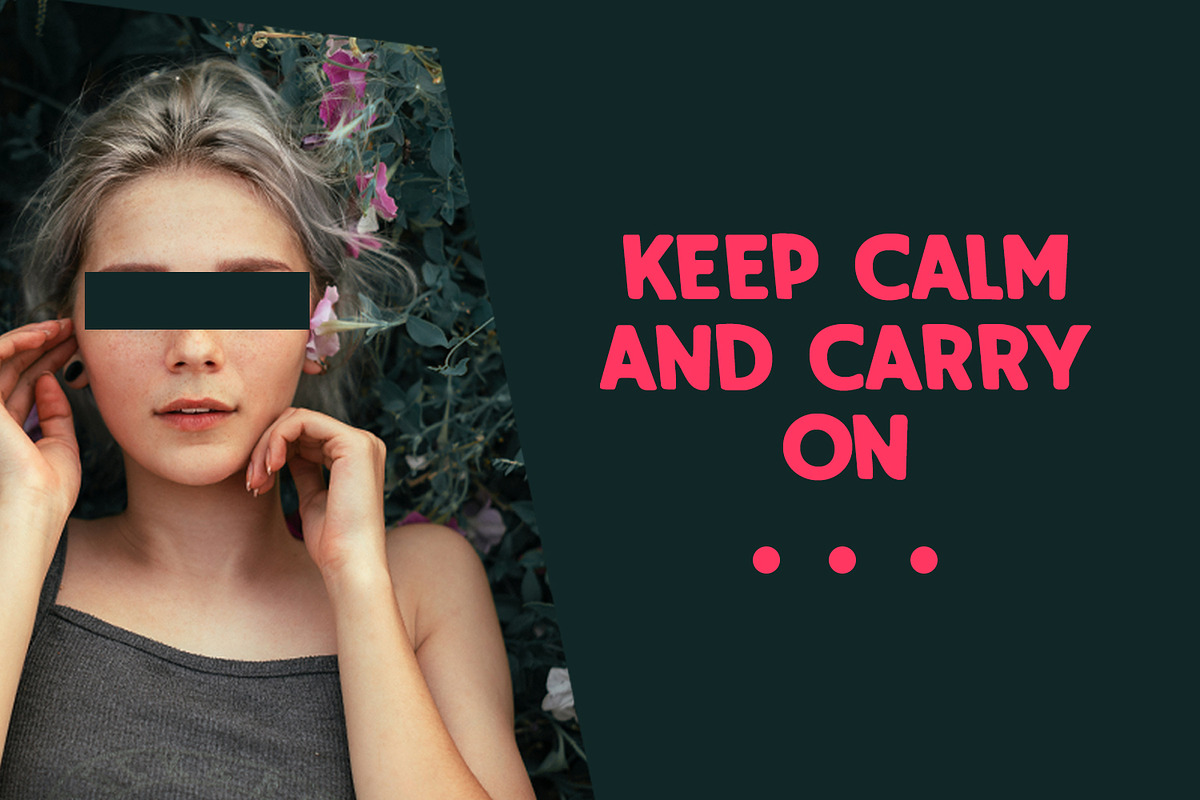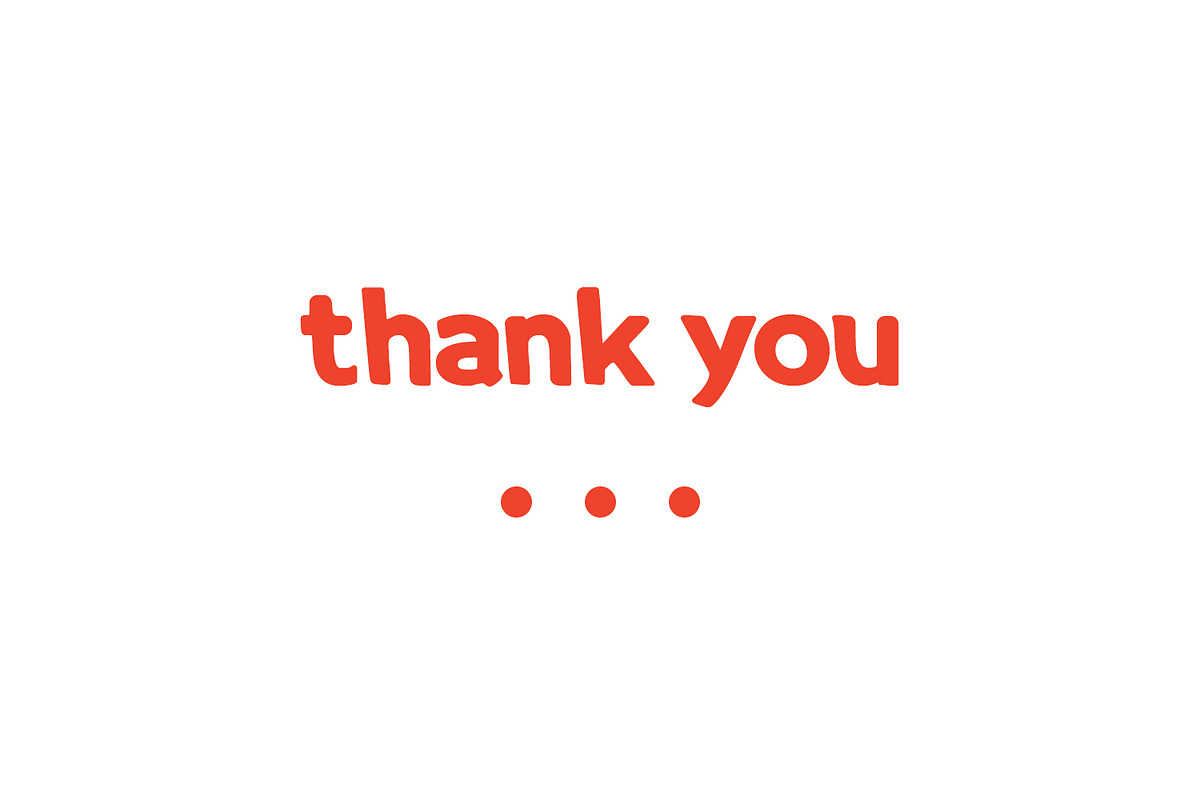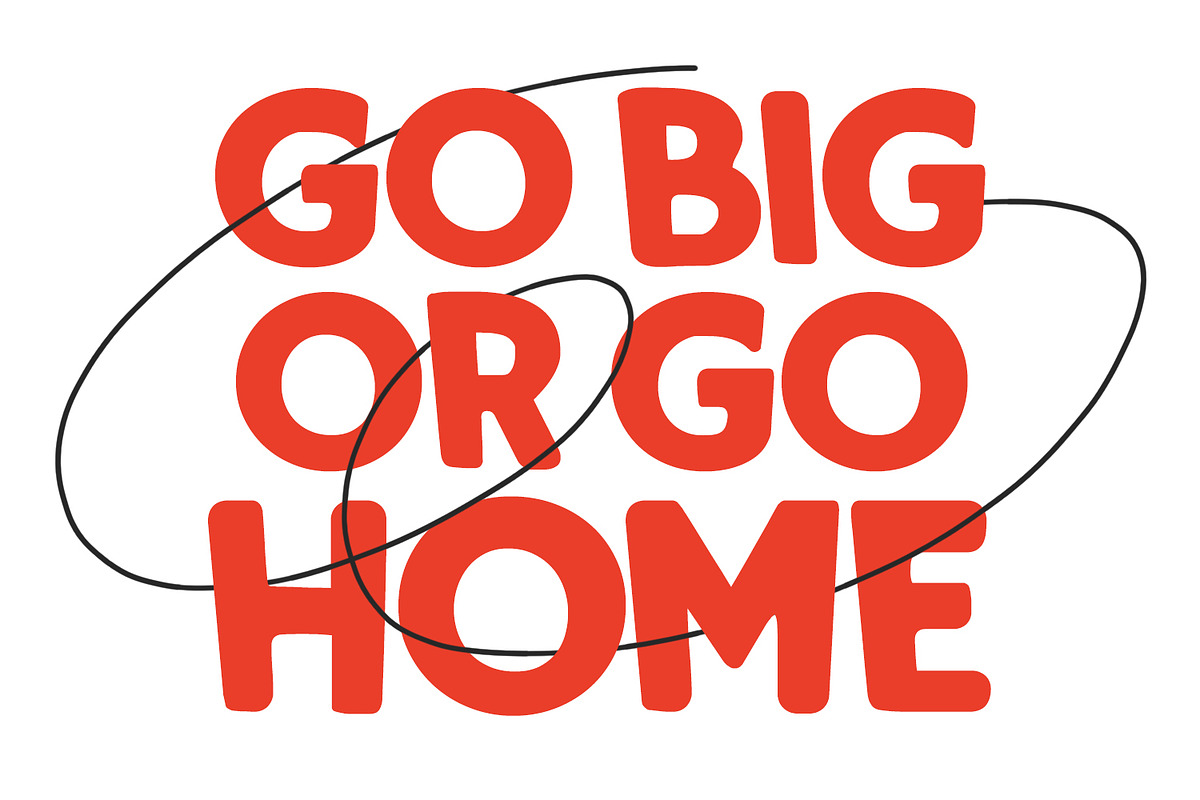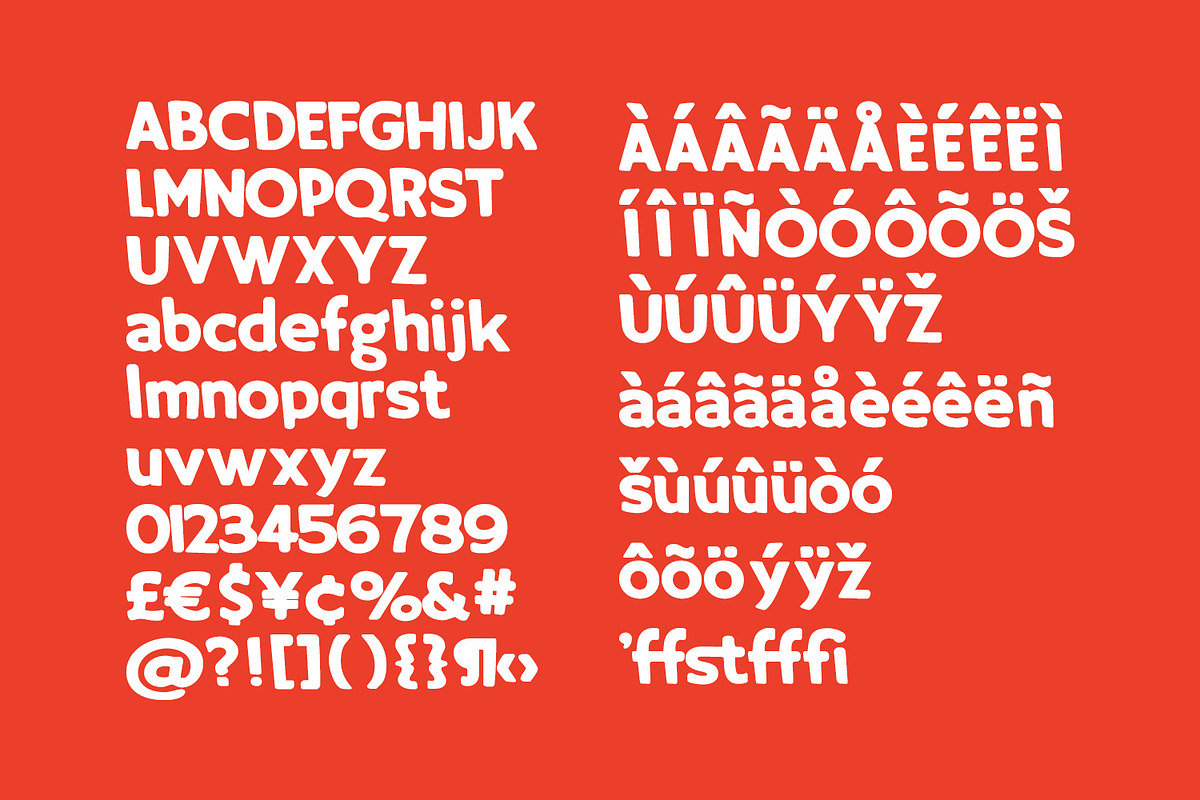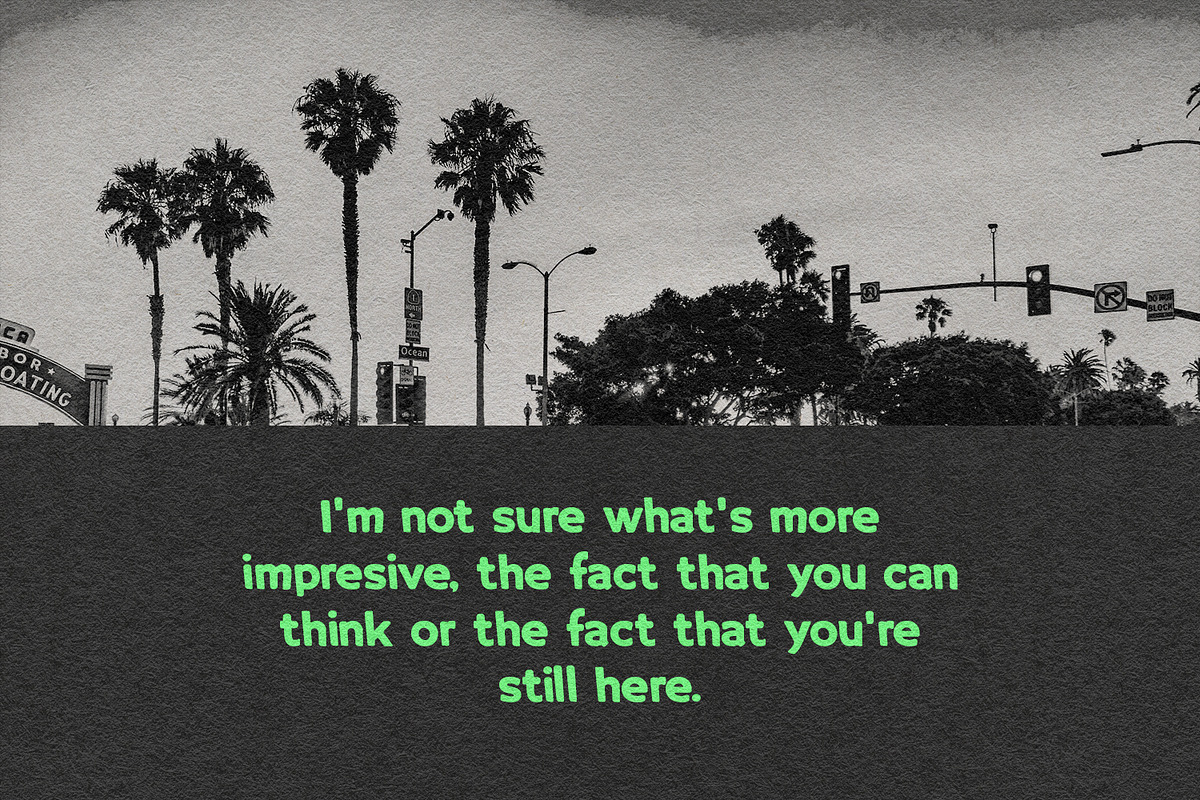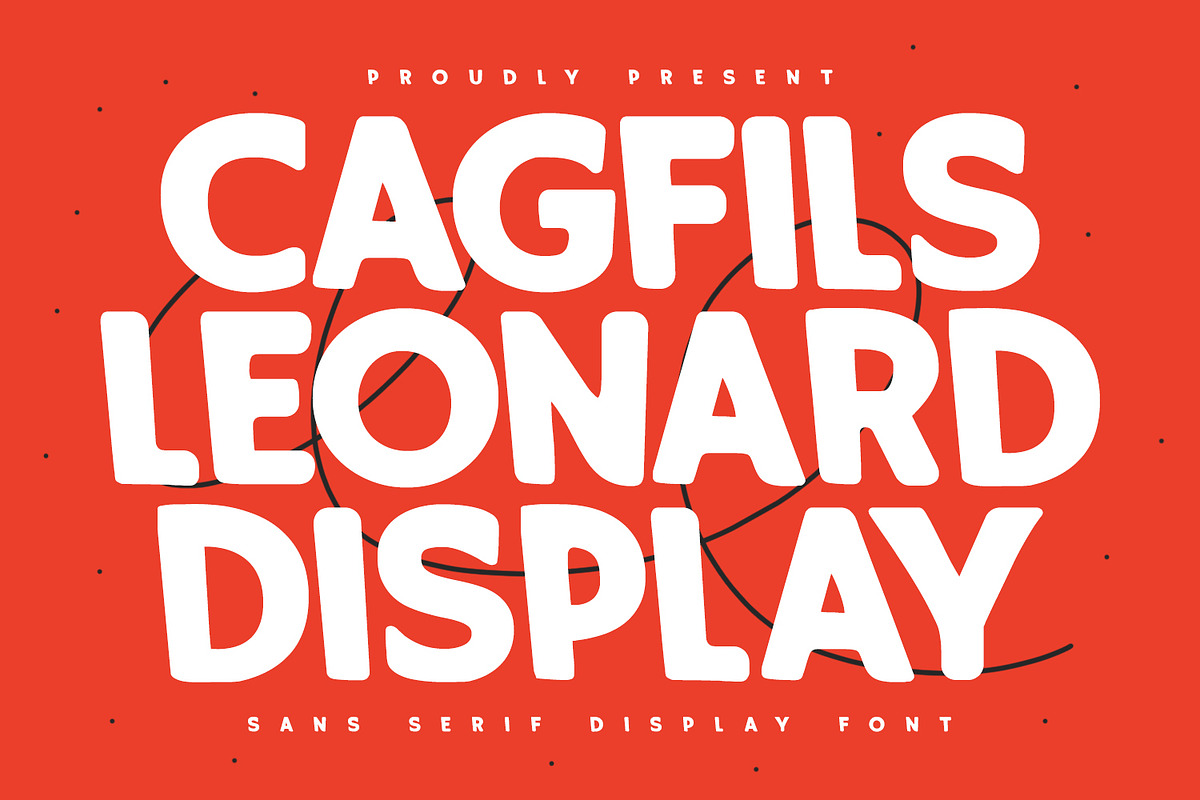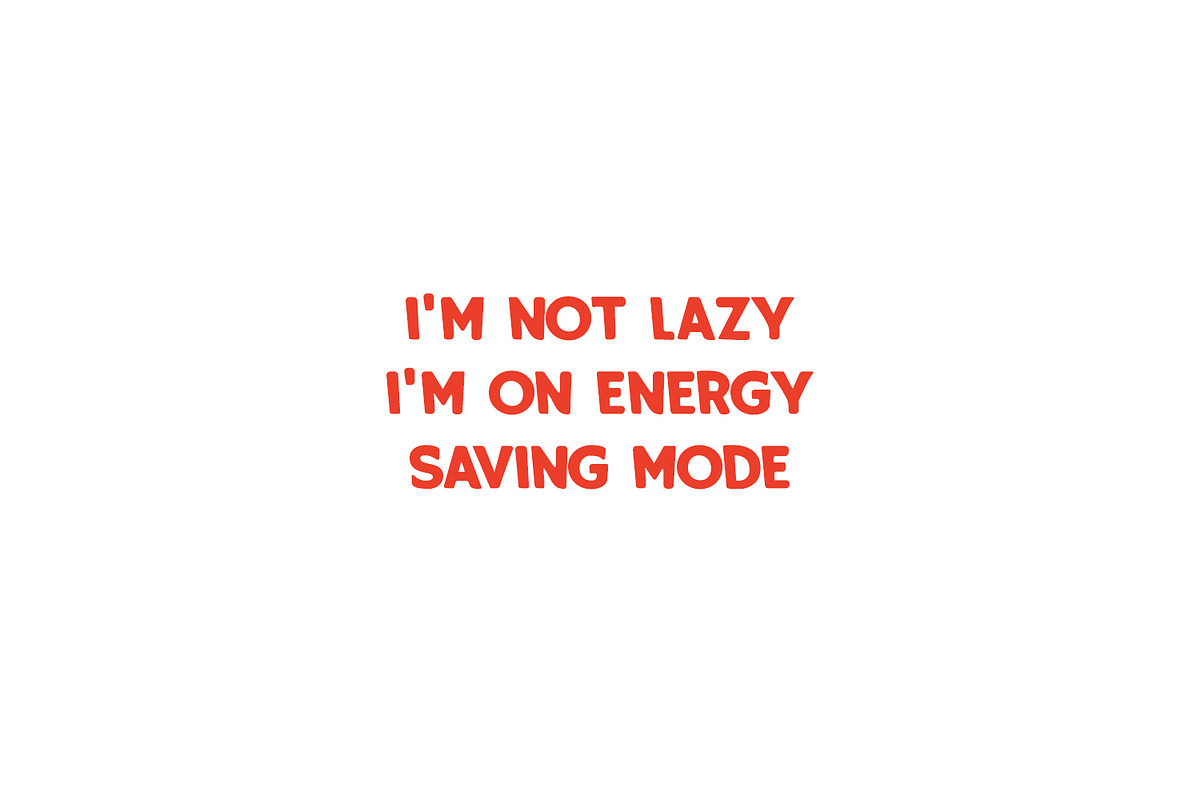
Cagfils Leonard Sans Serif Display
Cagfils Leonard is a sans serif rounded display font. Decorative font, fun character with a bit of ligatures. To give you an extra creative work. Cagfils Leonard font support multilingual more than 100+ language. This font is good for logo design, Social media, Movie Titles, Books Titles, a short text even a long text letter and good for your secondary text font with script or serif. Make a stunning work with Cagfils Leonard font.